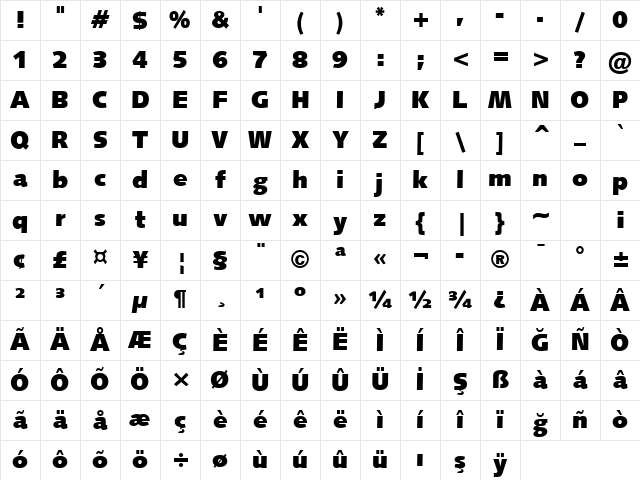
101! EtchASketch Regular Free Font
Design Context for 101! EtchASketch
101! EtchASketch is a composed and adaptable typeface that performs quietly and consistently across a wide range of design contexts.
Pro Tip: Use 101! EtchASketch in both headline and body roles to test its range before committing to a single application.